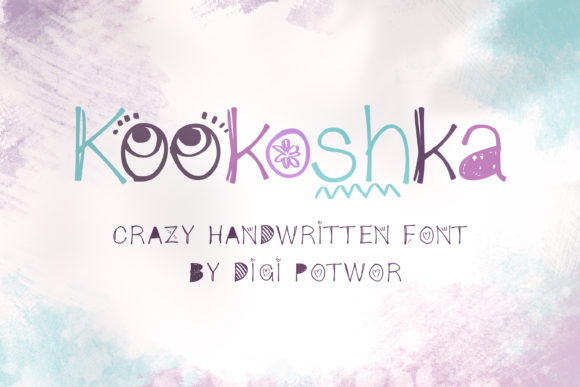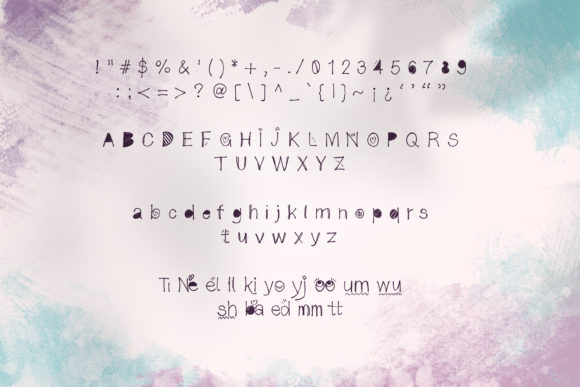
Kookoshka Font
Kookoshka is a cute, joyful and colorful handwritten font. Get creative with its sweet style, and use it to brighten up any kids and school project! This enchanting font will turn any creative idea into a true standout.